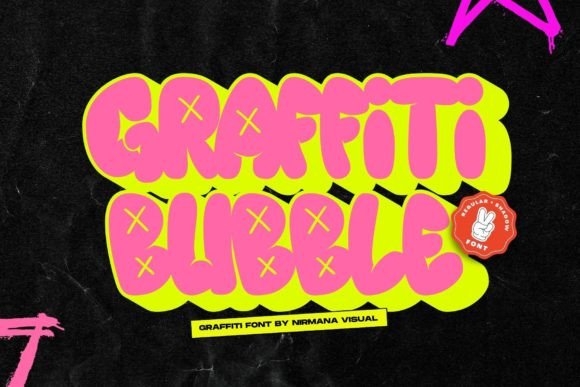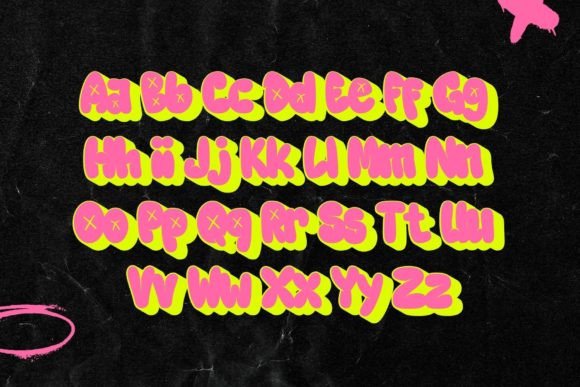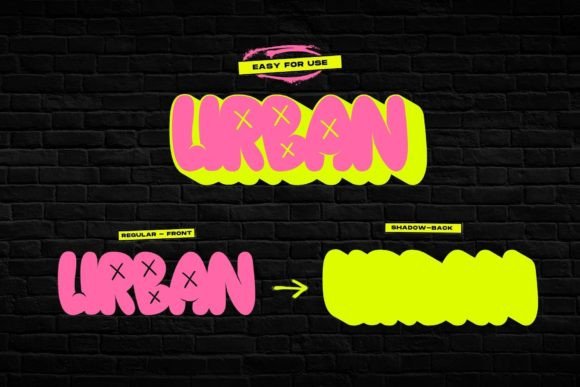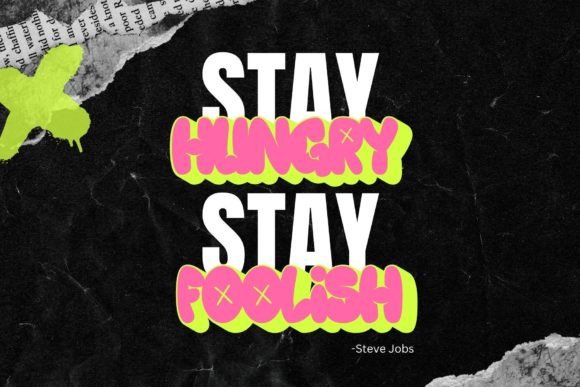
Graffiti Bubble Font
About the Graffiti Bubble Font
Introducing the Graffiti Bubble Font, a beautifully crafted typeface designed to elevate your creative projects. Graffiti Bubble is a fun, urban-style display font. This font is suitable for designs like logos, advertising, apparel, jerseys, sportswear, skateboard designs, and more. Take your concepts to the next level with this stunning font.
Graffiti Bubble excels in headline applications, short impactful statements, and branding for youthful, energetic brands. Its bold, playful nature makes it ideal for posters, apparel designs, and packaging targeting a younger demographic. Avoid using it for body text or lengthy paragraphs; its informal style is not suitable for readability in extended content or user interfaces.
This font’s core personality is undeniably bold and rebellious. To balance its informal energy, pair Graffiti Bubble with a clean sans-serif like Open Sans for body copy or a more structured geometric sans-serif for a modern contrast. Alternatively, a classic serif like Garamond can create an unexpected but effective juxtaposition, highlighting the playful nature of the display font.
For a more cohesive brand identity, consider pairing it with a complementary script font, providing a touch of elegance to soften its raw energy. However, avoid pairing it with fonts that are equally informal or overly decorative, which could create visual clutter and diminish the impact of Graffiti Bubble’s unique style.
Graffiti Bubble Font Usage Examples
Graffiti Bubble Font Example